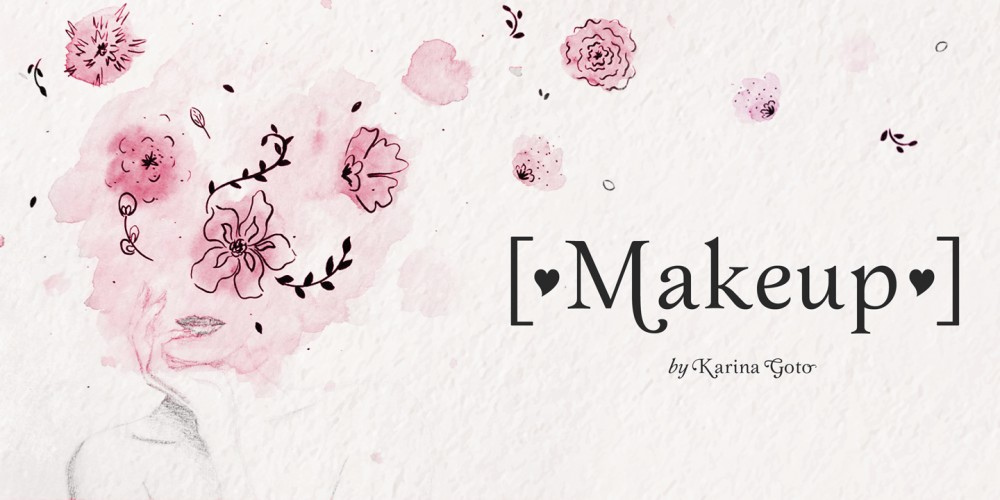
Makeup Font
Makeup Font is perfect for beauty branding, cosmetics packaging, salon signage, fashion campaigns, skincare products, glamour advertising, beauty blogs, makeup tutorials, luxury beauty brands, and elegant visual communications. This glamorous typeface excels in both digital and print applications requiring sophisticated beauty appeal.
Makeup Font is exciting because it captures the transformative power of beauty with elegant letterforms that evoke glamour and sophistication while maintaining excellent readability. Its glamorous character creates memorable brand experiences that resonate with audiences seeking beauty enhancement, self-expression, and sophisticated style.
The Makeup Font family includes regular, bold, light, italic, condensed, extended, and glamorous variants, providing designers with comprehensive typographic options for various design scenarios and beauty communication requirements.
Makeup Font embodies the transformative essence of beauty culture, delivering exceptional typography that reflects the artistry and sophistication associated with cosmetics and personal enhancement. This elegant typeface draws inspiration from makeup artistry, beauty salons, and glamour photography to create letterforms that communicate beauty, confidence, and sophisticated femininity. The font's glamorous character makes it particularly valuable for cosmetics companies, beauty salons, fashion brands, and lifestyle businesses that require typography capable of conveying beauty authority, glamorous appeal, and sophisticated elegance.
The refined construction of Makeup Font demonstrates careful attention to beauty design principles, with graceful proportions and elegant details that create sophisticated compositions reminiscent of luxury cosmetics packaging and high-end beauty branding. This glamorous approach ensures excellent performance across diverse applications, from product packaging to marketing campaigns where beauty appeal enhances brand desirability and consumer attraction. The font's sophisticated qualities make it especially effective for brands in cosmetics, skincare, beauty services, and fashion industries that celebrate beauty enhancement and personal transformation.
Creative professionals working with Makeup Font Free Download will appreciate the typeface's versatility across beauty and contemporary design challenges. Its glamorous styling bridges traditional beauty aesthetics with modern luxury trends, making it suitable for established beauty brands and innovative cosmetics companies requiring distinctive, memorable typography with sophisticated appeal. The font's elegant presence makes it particularly effective for beauty influencers, makeup artists, luxury spas, and fashion businesses that must communicate beauty through refined, attractive visual design.
Whether developing beauty brand identities, creating glamorous communications, or designing cosmetics marketing materials, Makeup Font provides the sophisticated elegance needed for communications that inspire beauty and convey luxury value while maintaining glamorous appeal and achieving distinguished market positioning across all beauty and fashion channels requiring elegant sophistication.